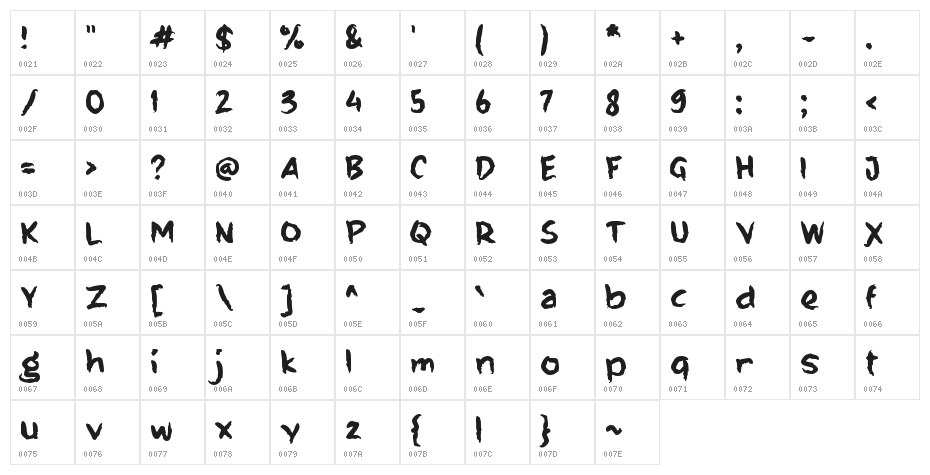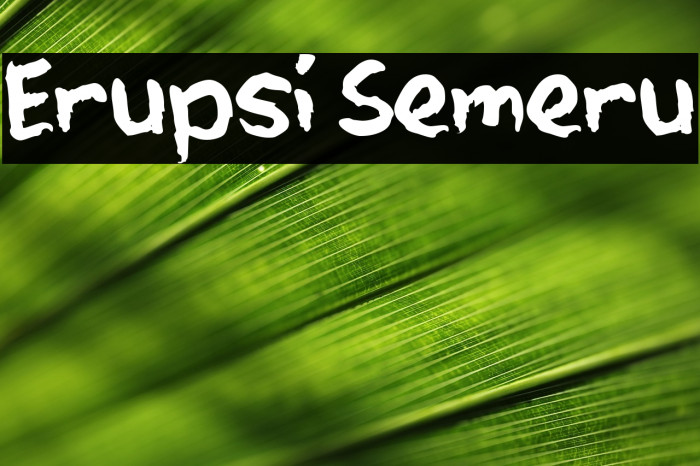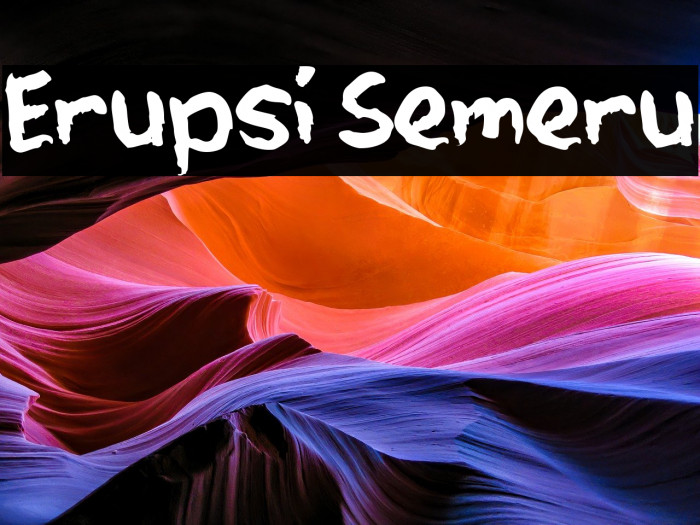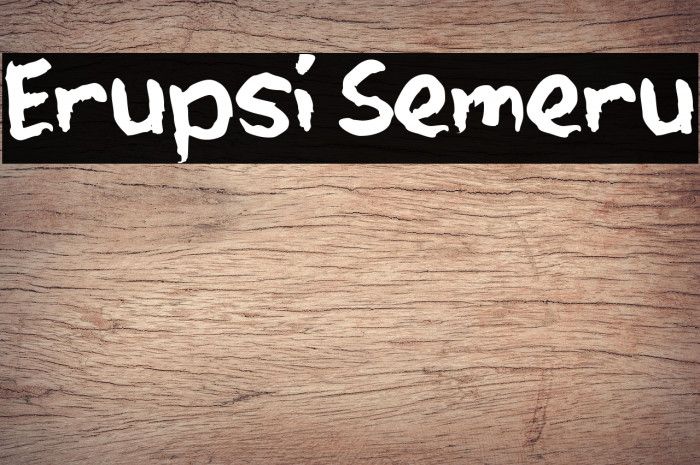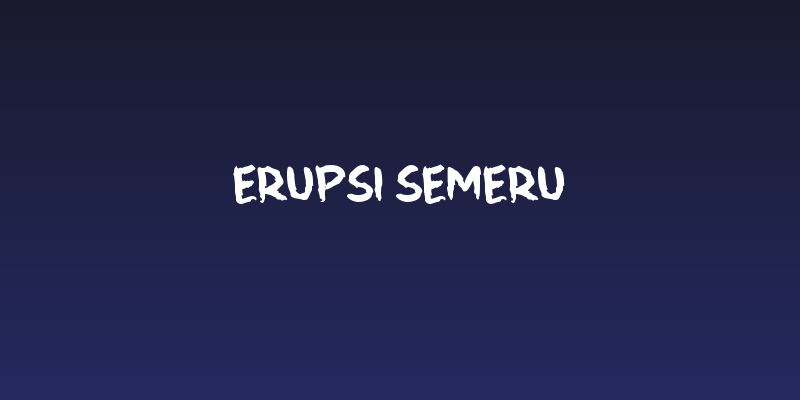
Erupsi Semeru Font
Erupsi Semeru Description
This font exhibits a bold and rugged style, reminiscent of brush strokes or hand-painted letters. The characters have an uneven texture, giving them a dynamic and energetic appearance. The uppercase and lowercase letters maintain a consistent style, with some characters featuring unique flourishes that add to the font's distinctiveness. Numbers and special characters are crafted with the same boldness, ensuring a cohesive look across all glyphs. The overall impression is one of spontaneity and artistic flair, making it suitable for projects that require a touch of creativity and individuality.
| Proposed Projects | Ideal for posters, album covers, artistic branding, and creative advertising campaigns. |